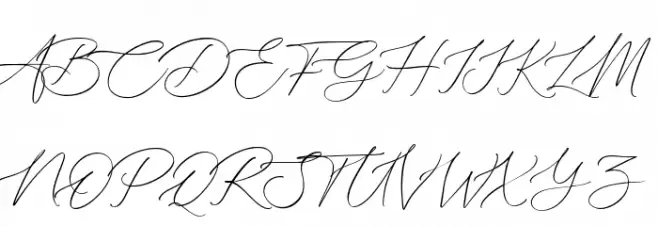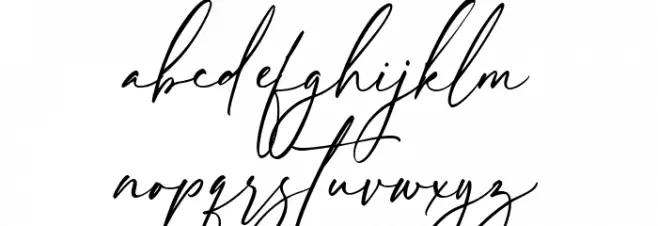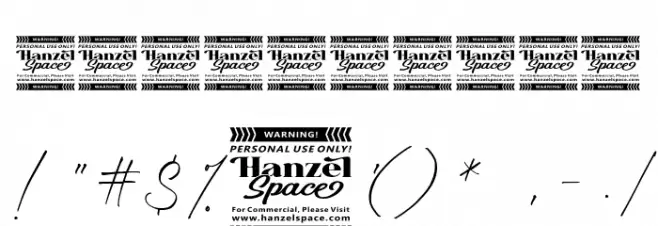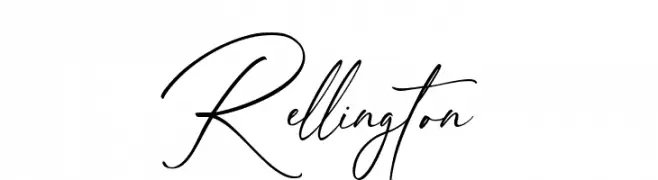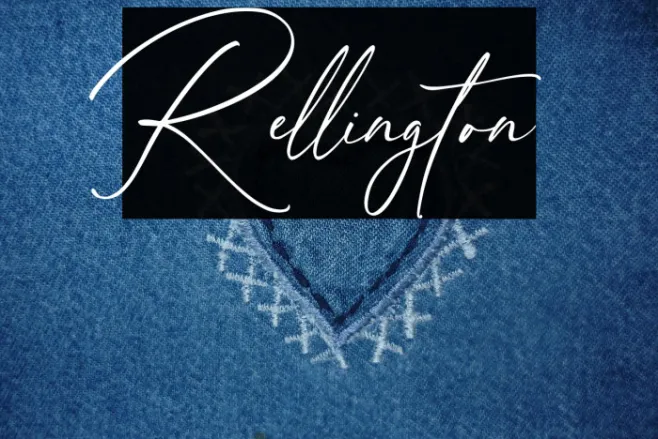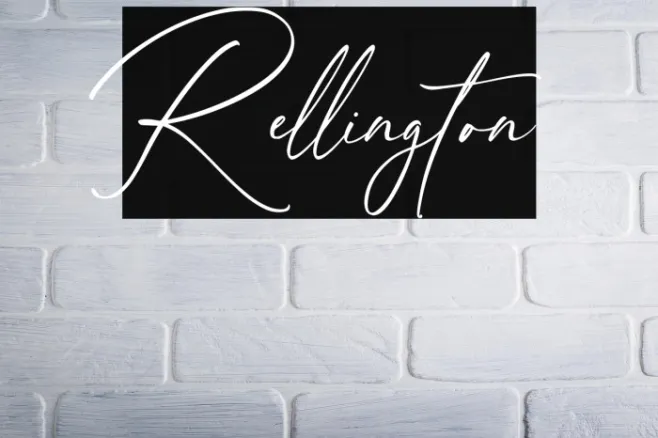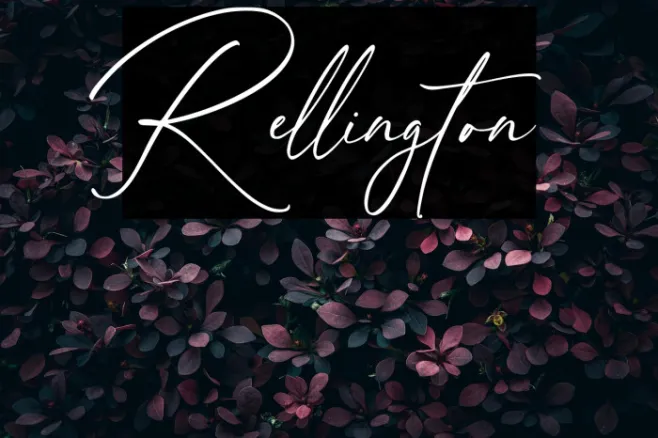
Rellington
A flowing, elegant script font with a handwritten style, featuring smooth curves and connected letters.
Elegant handwritten script font.
- Proposed Projects: Invitations, greeting cards, branding.
- Category: Script
- Character Spacing: Tight
- Overall Style: Decorative
- Use Case: Logos, Invitations